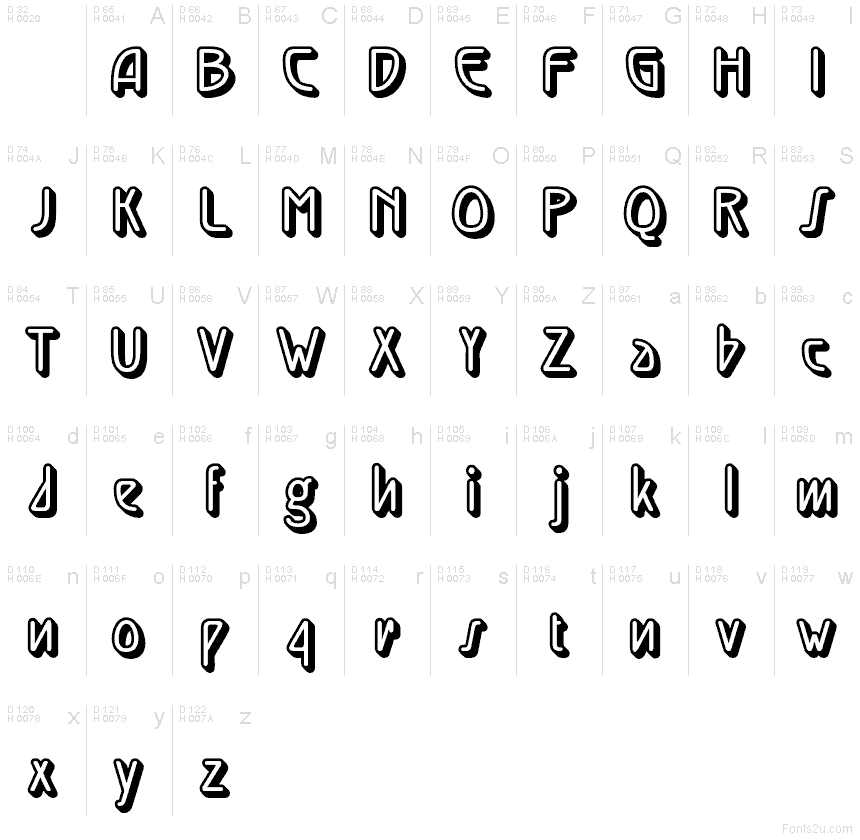
JacelonRounded-ExtrudeRight Demo
Jacelon Rounded ExtrudeRight font by Craft Supply Co. is a stunning modern display free font that blends vintage influences with futuristic style. Its unique eye-catching character shapes are impressive, to say the least! Complex geometric shapes and inward cutouts are present in each letterform for a distinctive feel, while baked in retro vibes add further versatility.